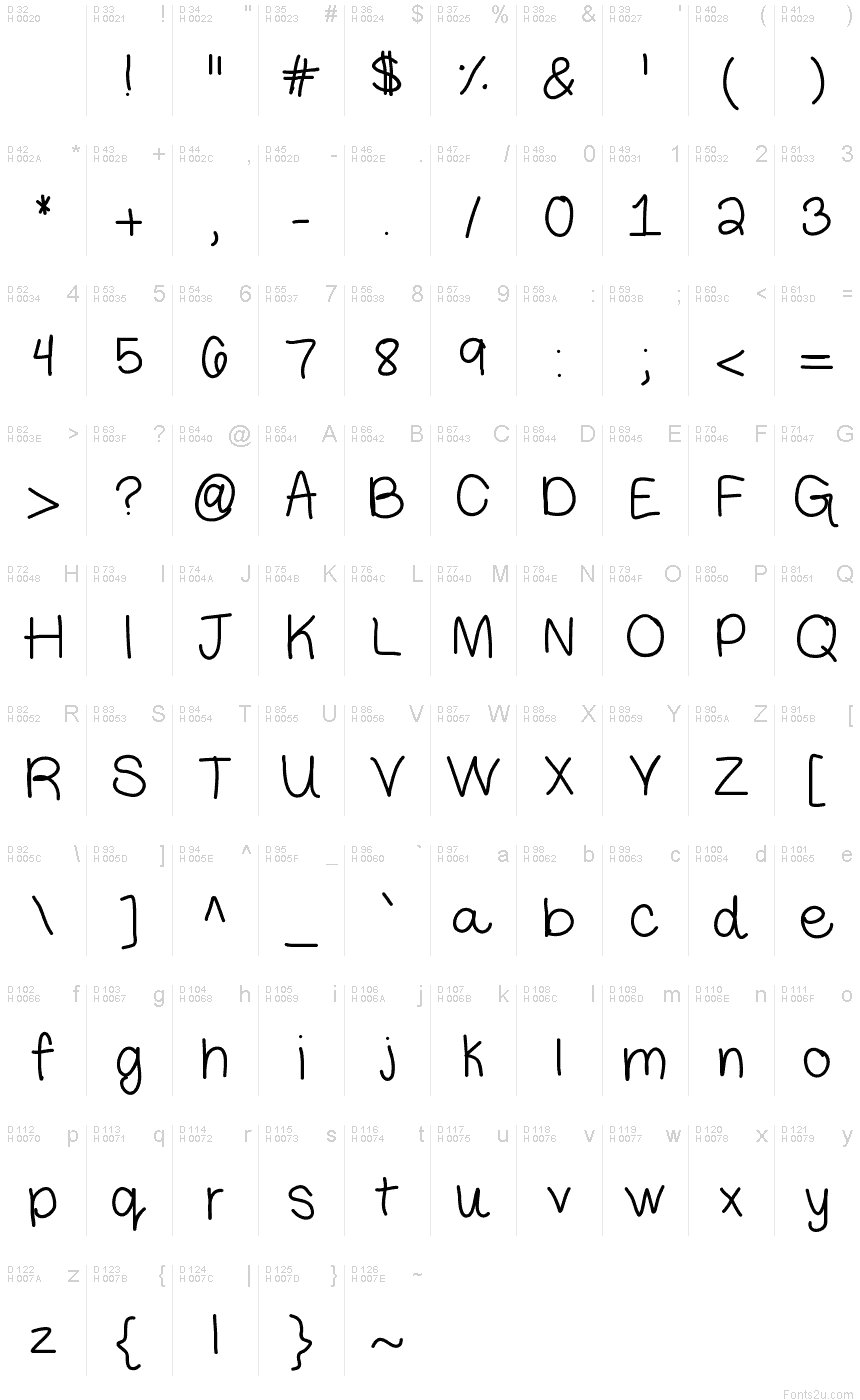
LibbyHand
The Handwriting of a friend of mine. Works well when you want to give text a feminine flair, especially with girl characters in comics or cartoons.